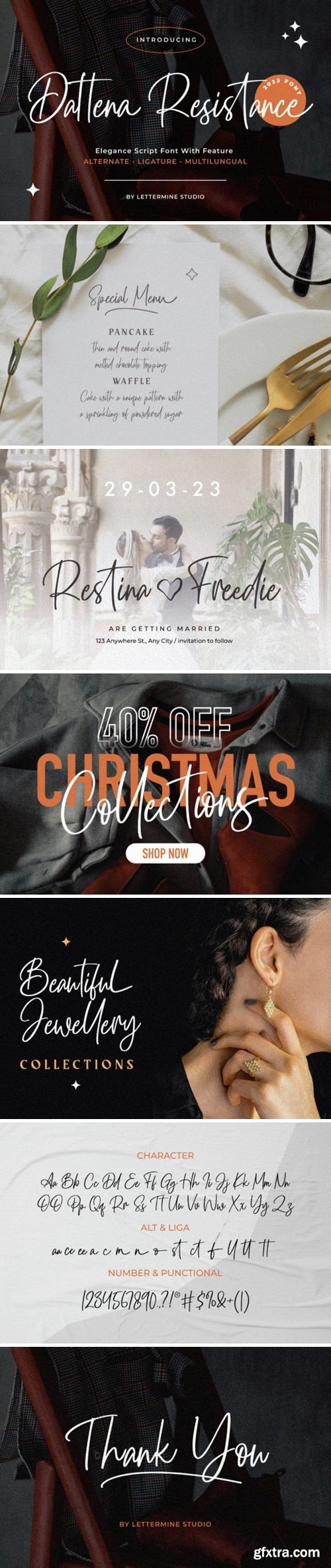
Introducing Dattena Resistance-Script Font, a captivating and versatile script font designed to add a touch of elegance and modernity to any project. Whether you’re designing for the fashion industry, food industry, or various celebratory occasions like weddings, birthdays, or engagements, this font is your perfect companion. With its stylish and contemporary script style, Dattena Resistance-Script Font effortlessly captures attention and elevates your designs to new heights.